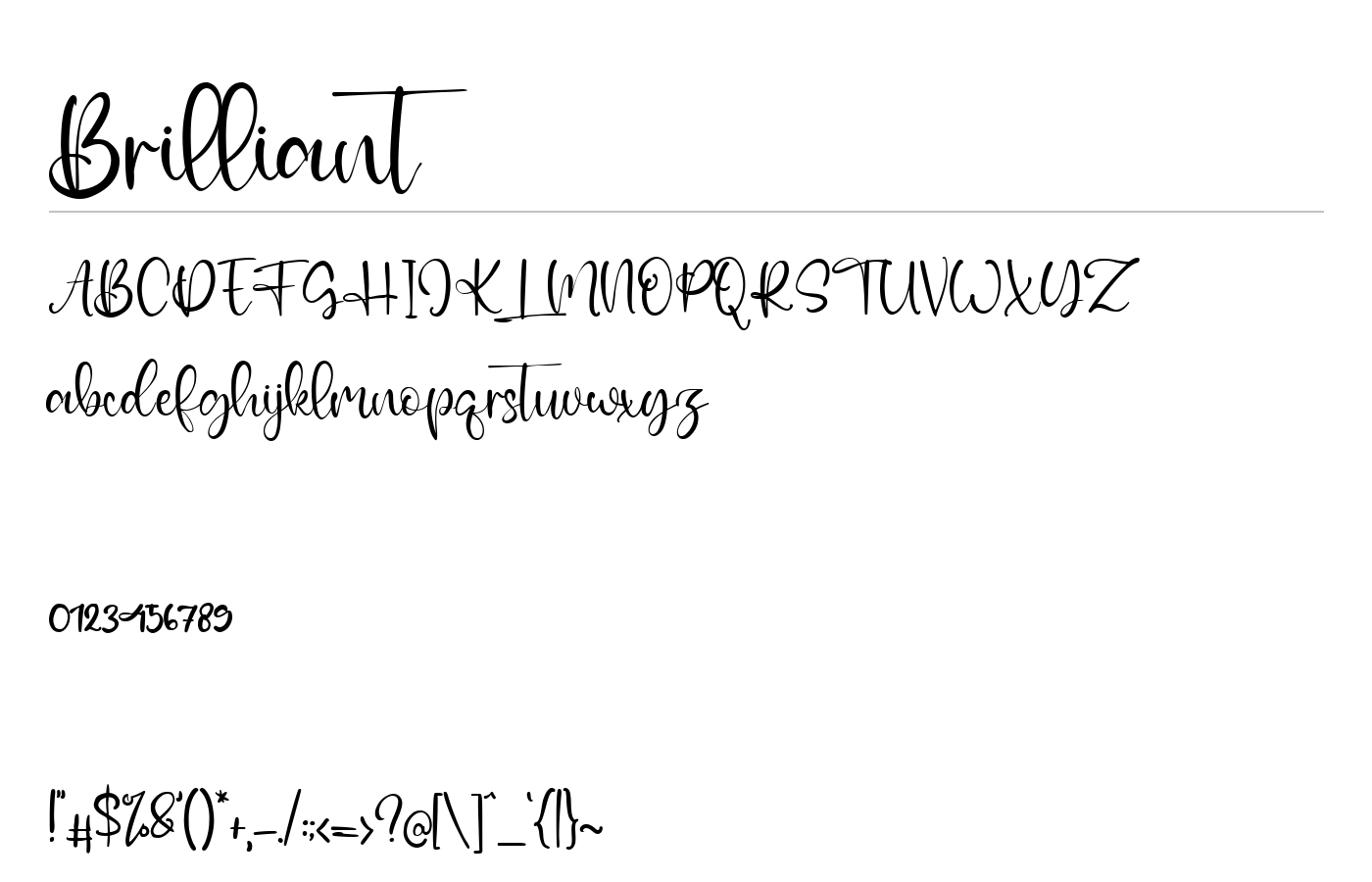
Brilliant Font is a delicate, script-style typeface with a casual yet elegant feel, characterized by its light weight, flowing strokes, and playful letterforms. Its handwritten quality makes it perfect for creative uses like invitations, branding, and stylish headlines, bringing a personal and charming touch to any design. The font’s airy spacing and whimsical curves convey warmth and friendliness, ideal for projects seeking a graceful and approachable appearance.
Brilliant Font
About Brilliant Font
| Font family | Brilliant Font |